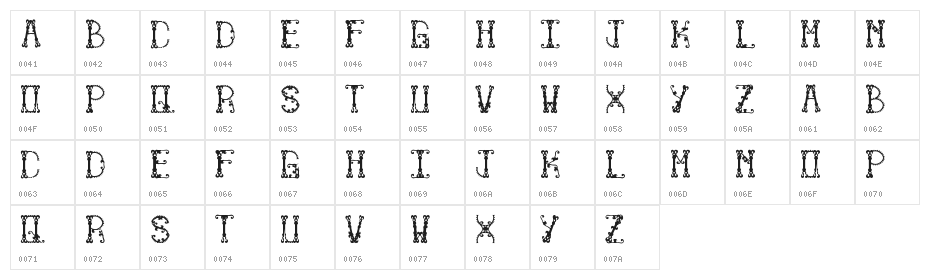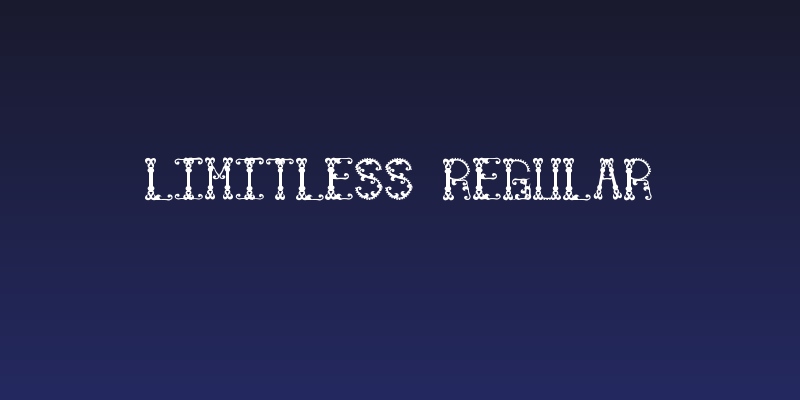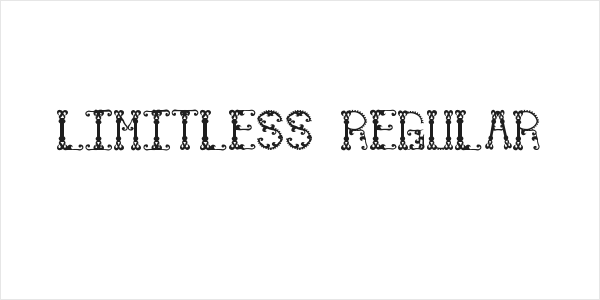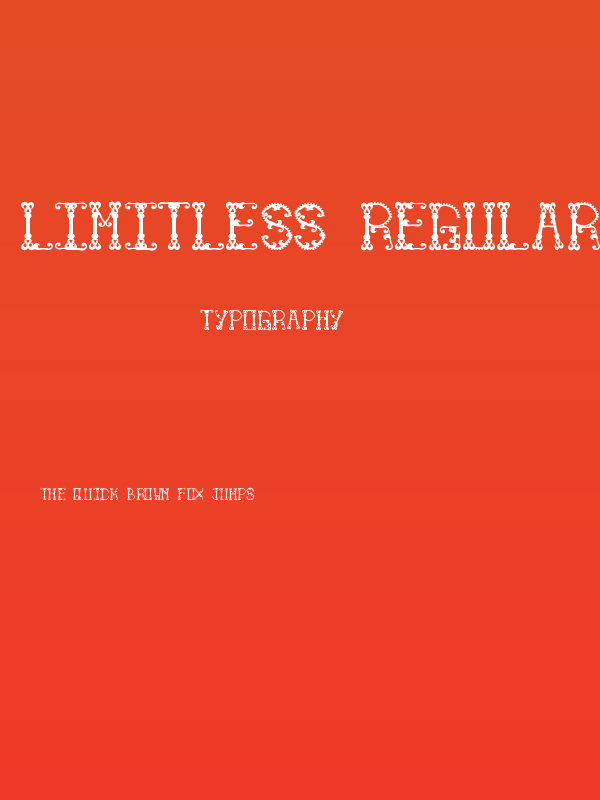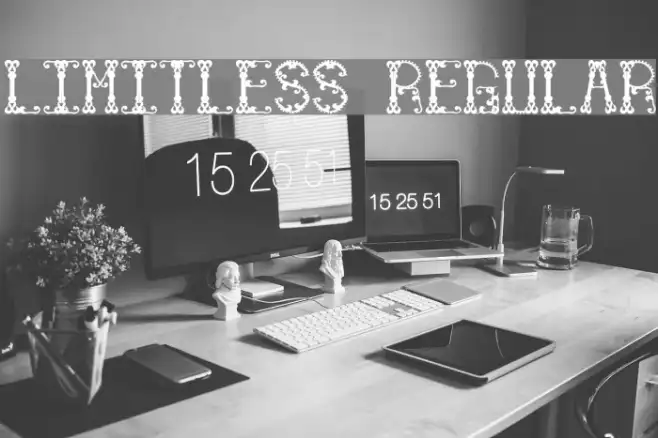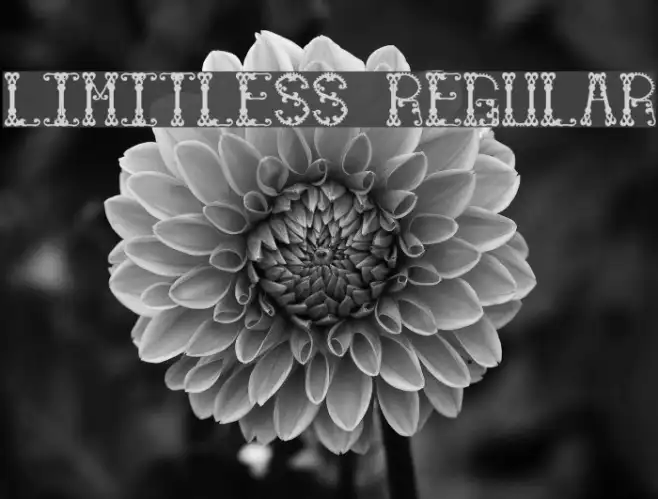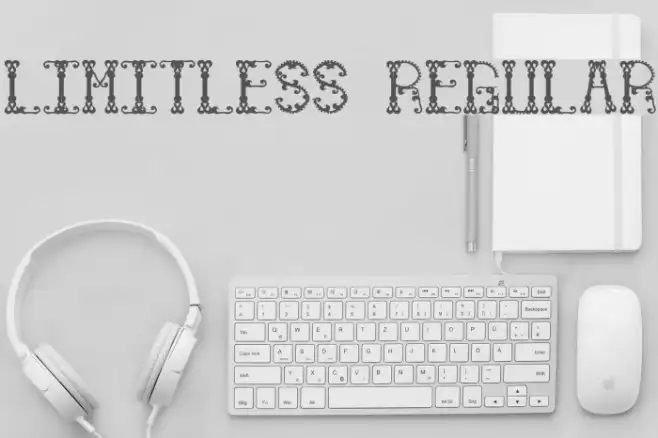
Limitless Regular Font
Limitless Regular Description
This font features an intricate and decorative style, characterized by elaborate swirls and loops that embellish each letter. The design is reminiscent of vintage or steampunk aesthetics, with a playful yet sophisticated flair. The uppercase and lowercase letters maintain a consistent decorative theme, making it ideal for projects that require a unique and eye-catching typeface. The ornate details are consistent across all characters, including numbers and special symbols, providing a cohesive look. This font is best suited for creative and artistic applications where a bold statement is desired.
| Overall Style | Vintage, Decorative |
| Use Case | Headlines, Logos, Artistic designs |
| Proposed Projects | Ideal for invitations, posters, branding, and artistic projects that require a distinctive and decorative typeface. |